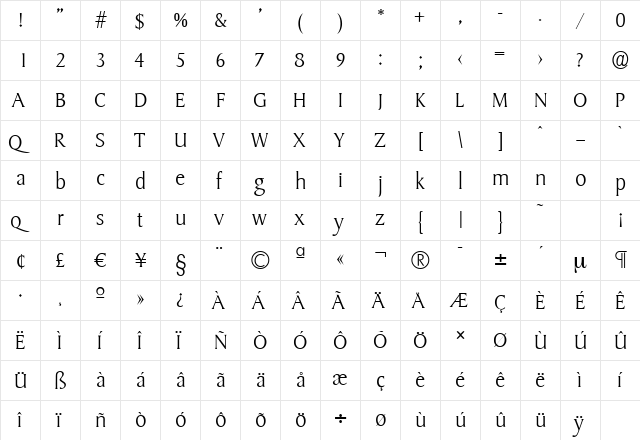
SydneySerial-Xlight Regular Font Preview
SydneySerial-Xlight Regular
SydneySerial-Xlight Regular Font Details
Design Context for SydneySerial-Xlight Typeface
SydneySerial-Xlight is a composed and adaptable typeface that performs quietly and consistently across a wide range of design contexts. The delicate stroke weight brings airiness and refinement to layouts.